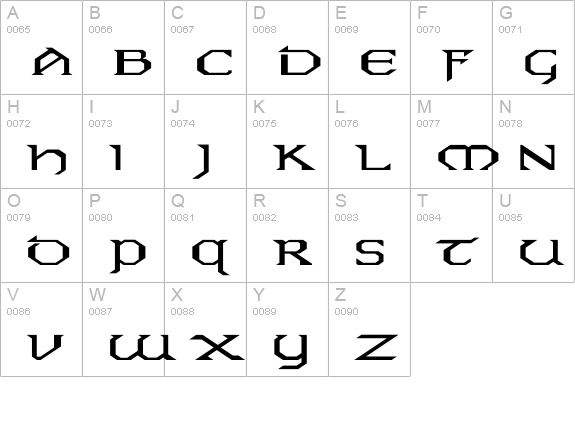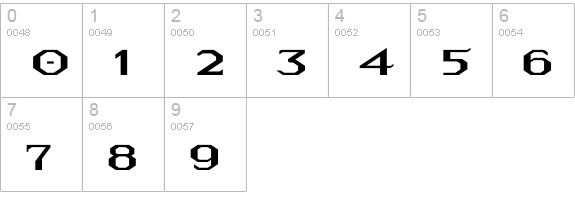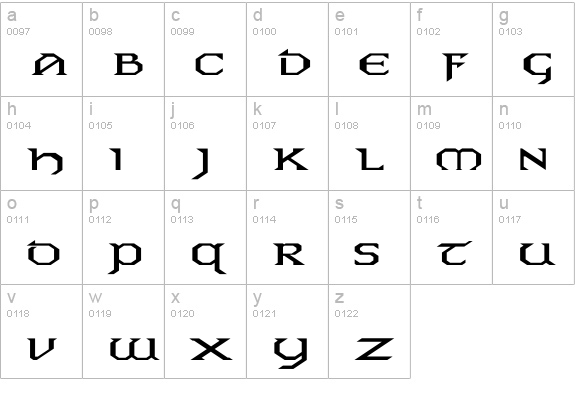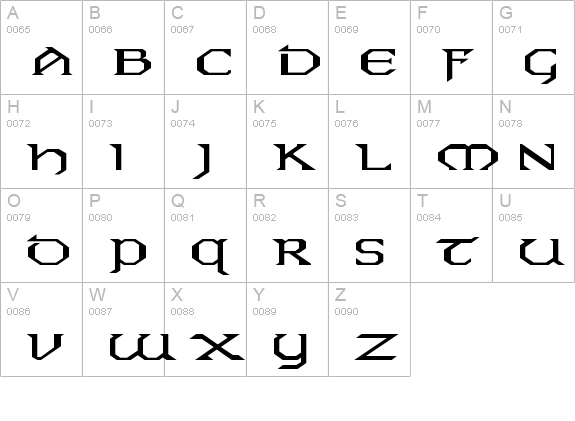
Eire Ex is a stunning and versatile font that exudes elegance and sophistication. With its unique and eye-catching design, this font is perfect for a wide range of design projects, from branding to editorial designs. The clean lines and modern look of Eire Ex make it a great choice for both digital and print applications. What sets Eire Ex apart is not only its stylish appearance but also the fact that it is available for free download at FontsMarket.com. This means that you can easily access this high-quality font without any cost, making it a valuable addition to your font collection. Whether you're a professional designer or a hobbyist, Eire Ex is sure to elevate your projects and help you achieve the perfect look every time. Download Eire Ex today and unleash your creativity with this exquisite font!